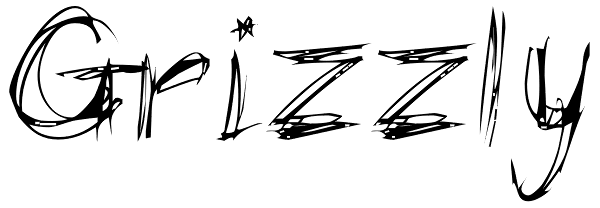
Grizzly
Grizzly is a handwritten display style typeface. It was designed by hand using a flair pen, then scanned in, vector traced and fontisized. It is a very detailed typeface that looks great at large point sizes on screen and in print. Grizzly"s...